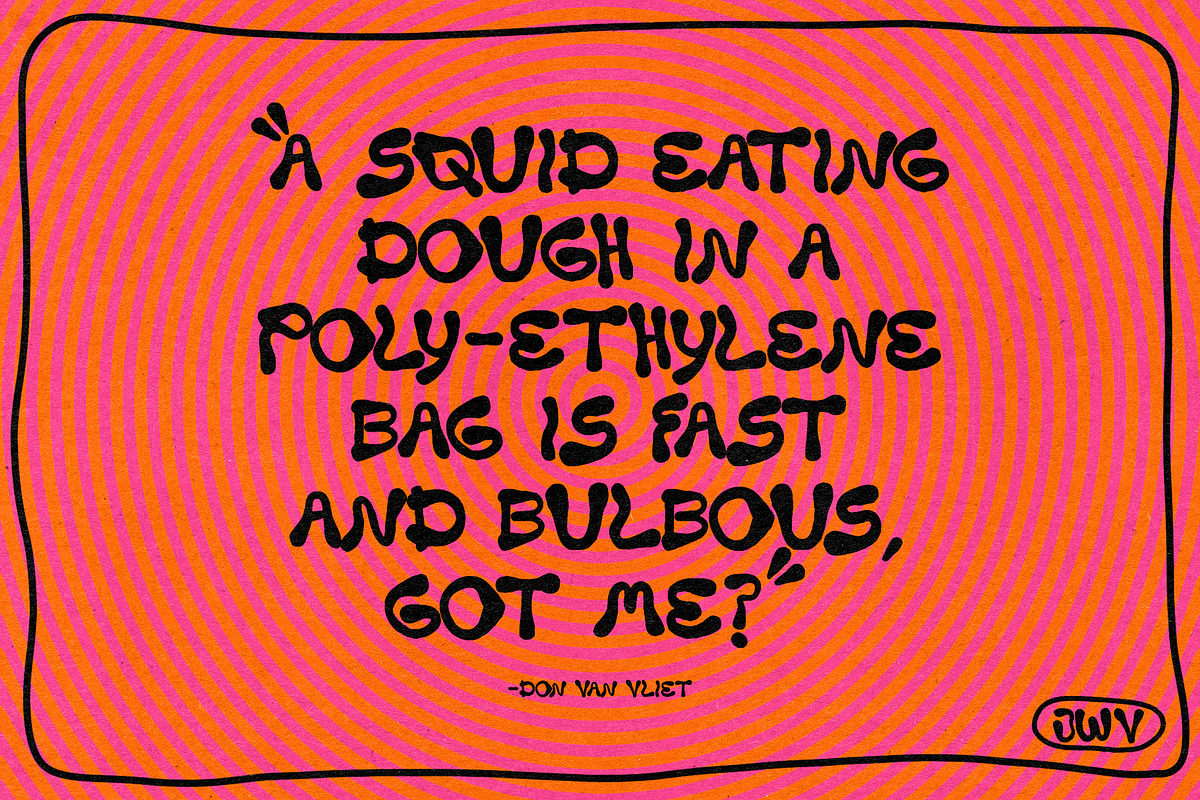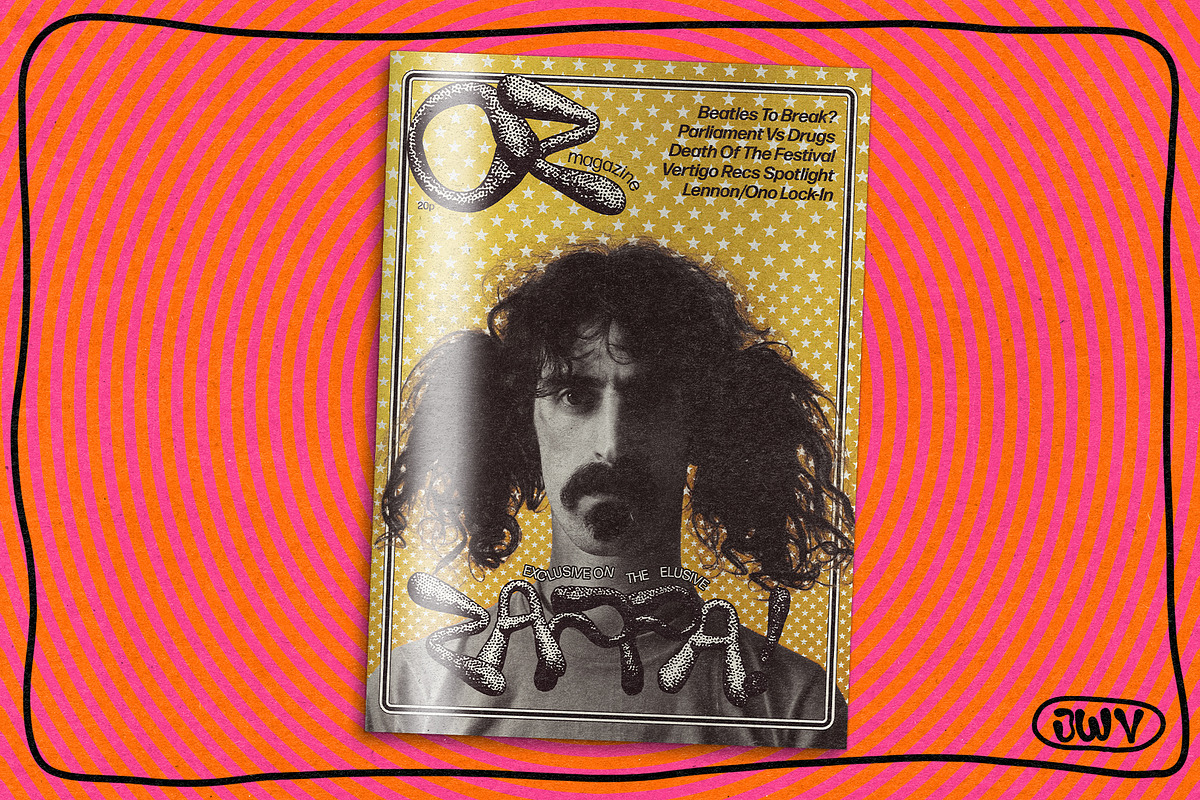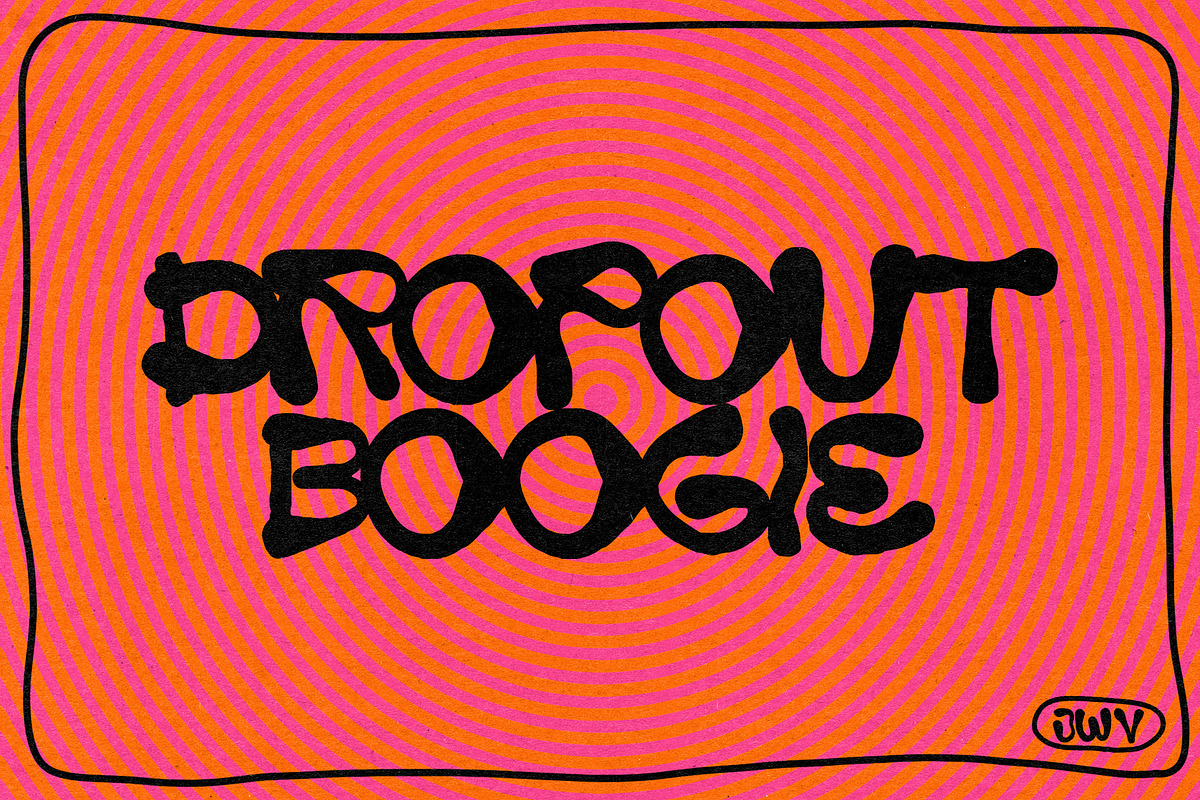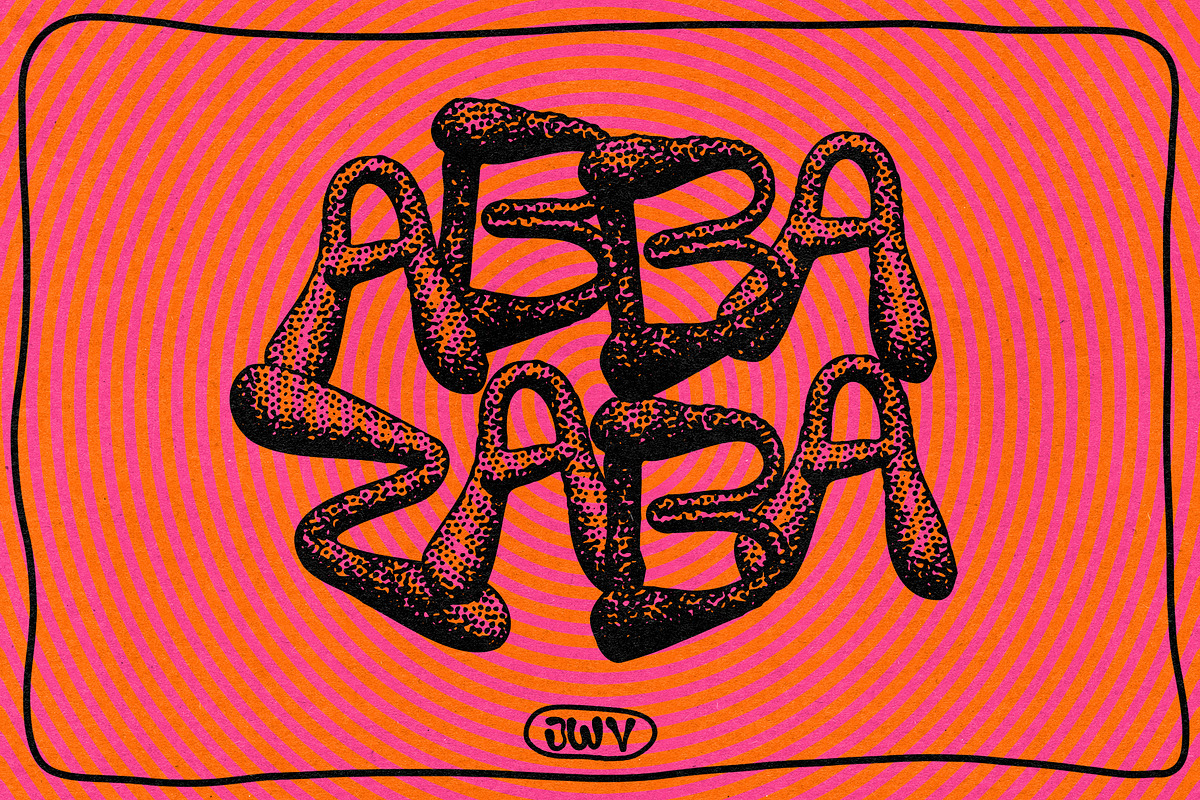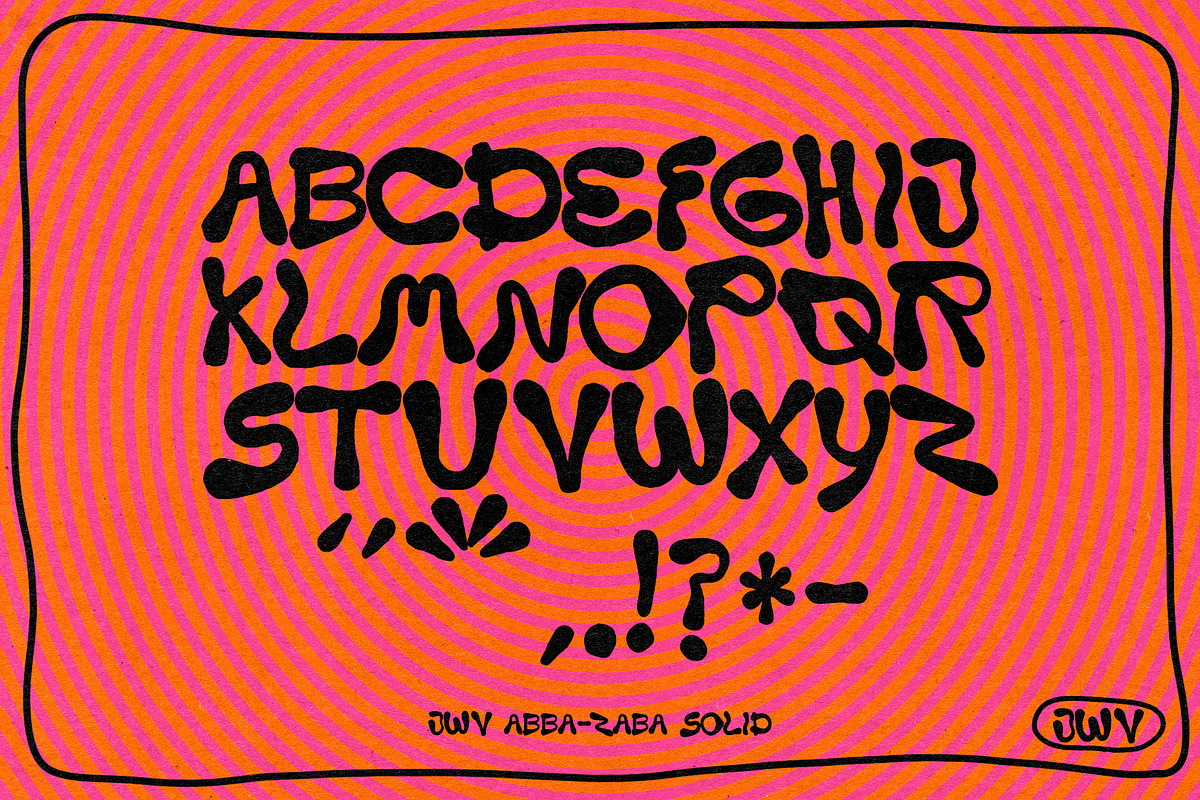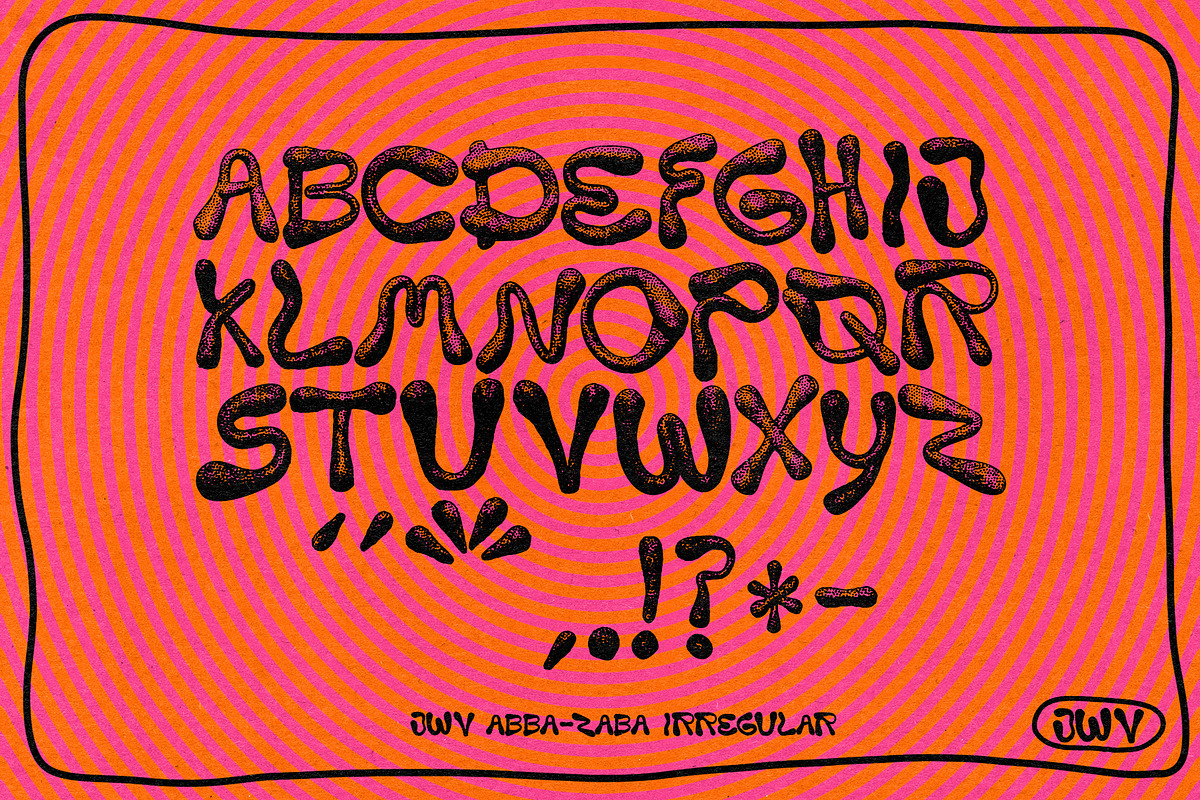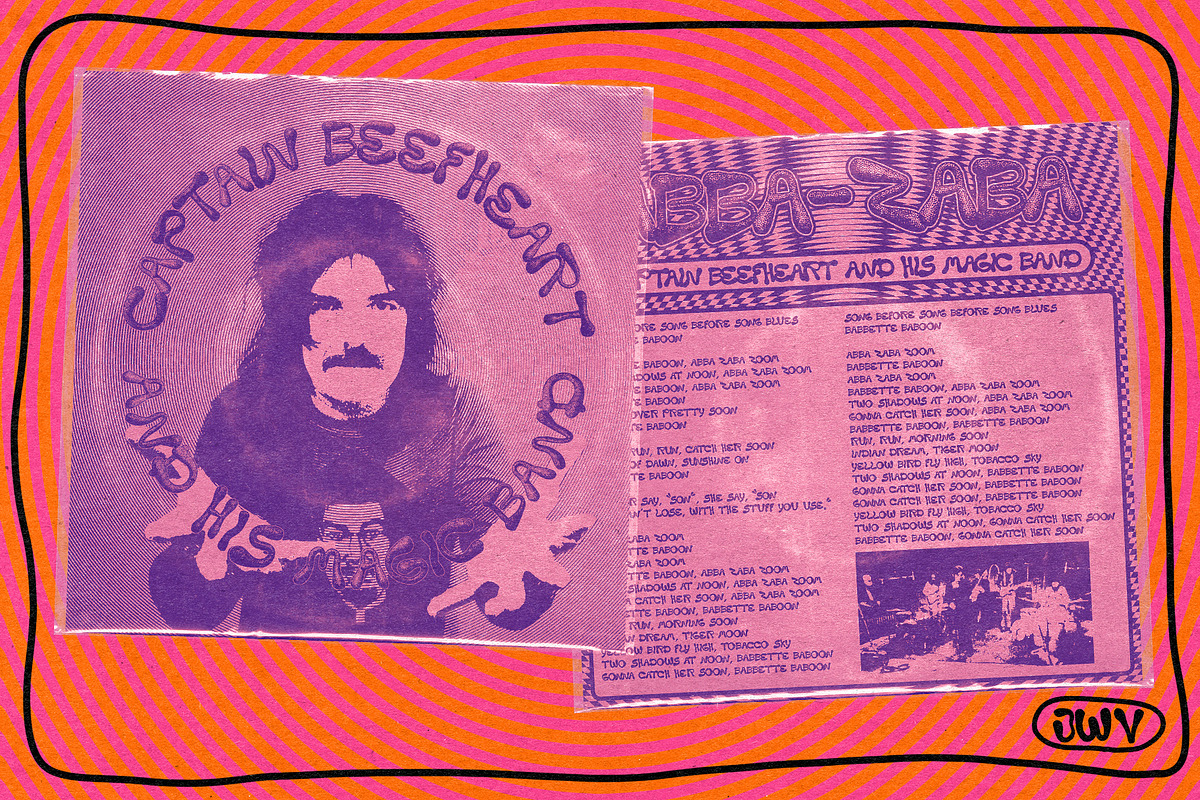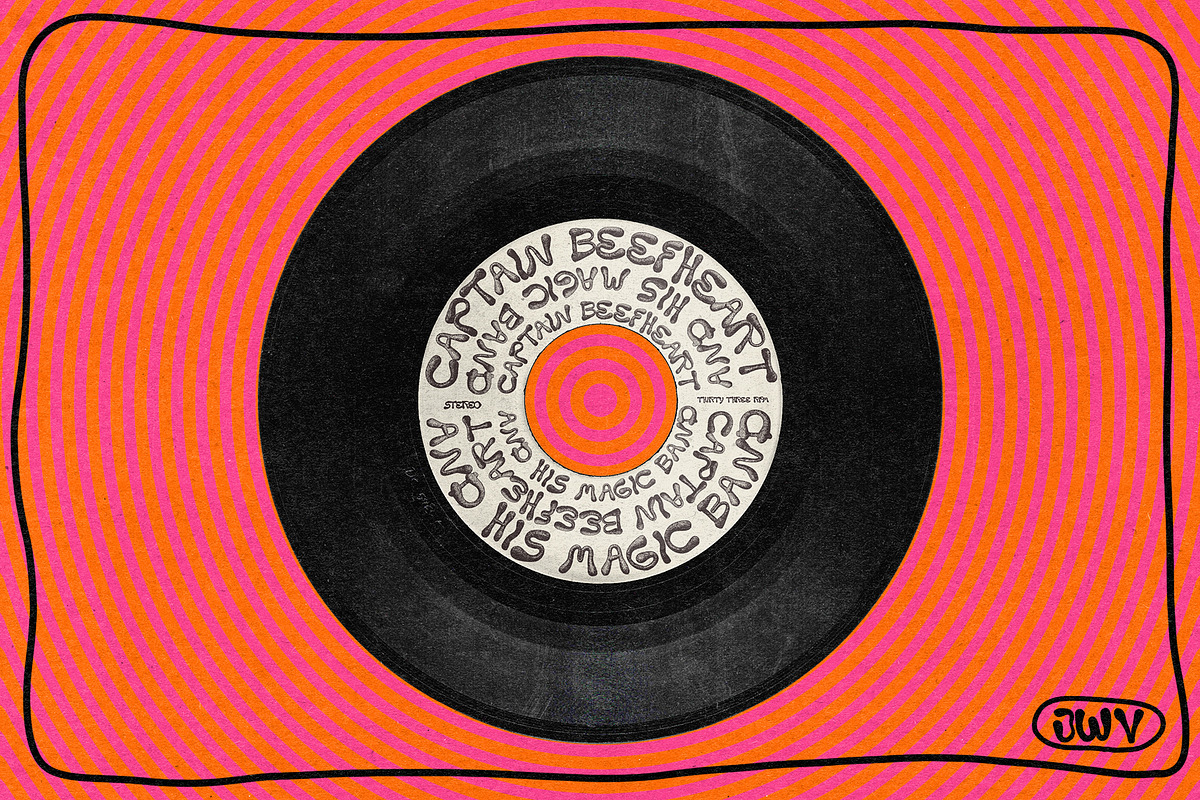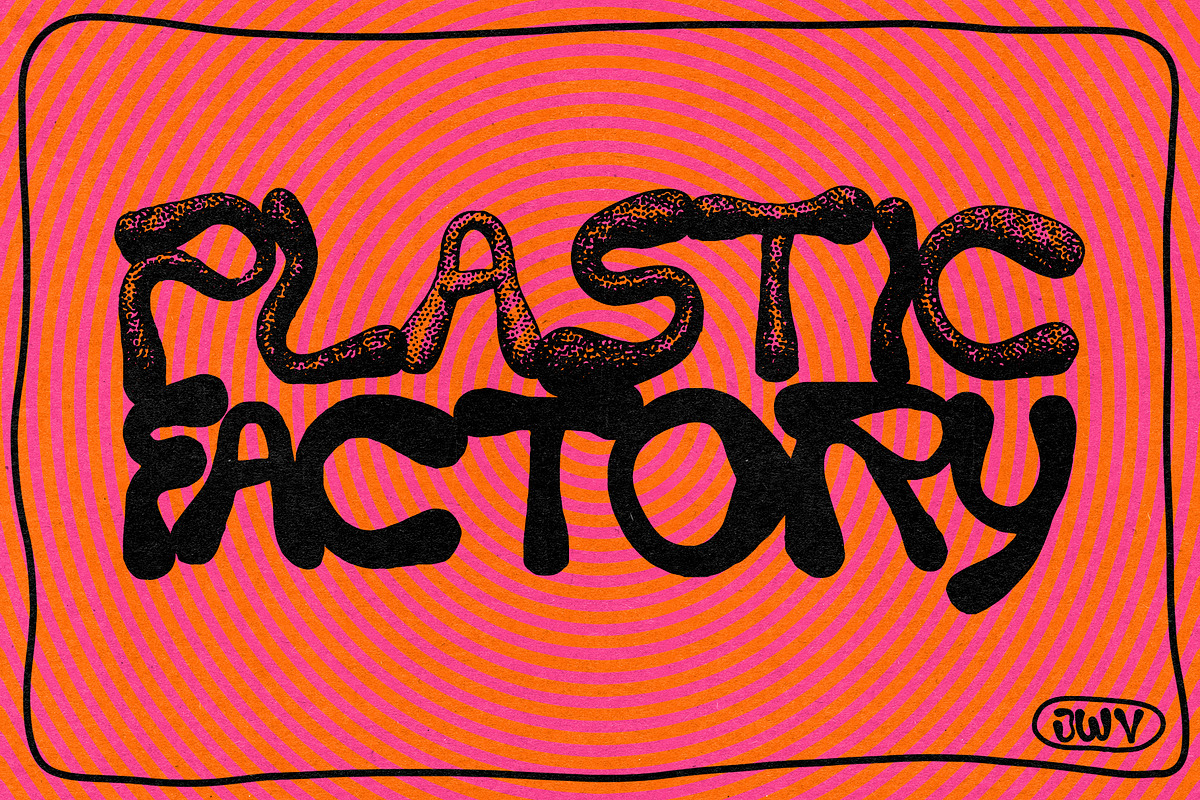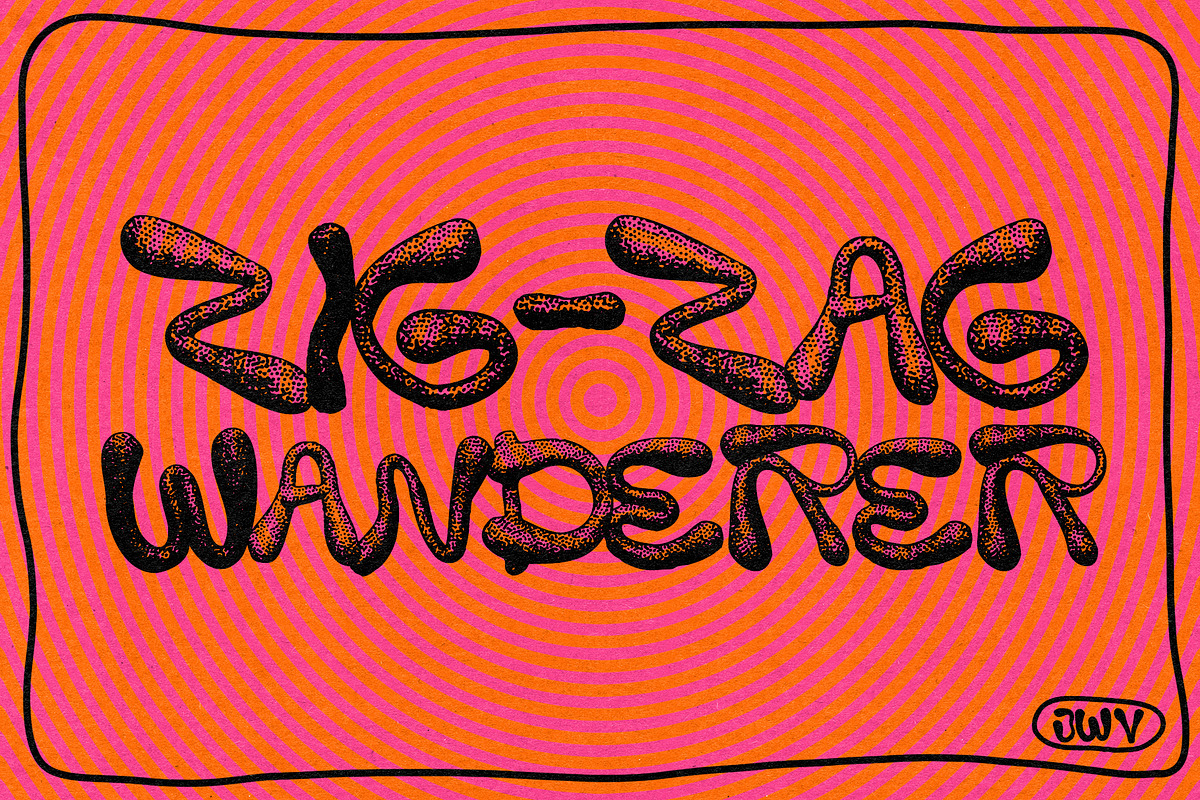
JWV - ABBA ZABA
This weirdo font was an early experiment from way back in my earliest font making days. Each character has been handcrafted in blu-tac, photographed and then edited to retain all of its 3D glory. If your poster project is looking a little bland right now then this is just what it's looking for, that little bit of FREAK to liven it up!
The fonts include Capitals from A(bba) to Z(aba) and a handful of punctuation. I couldn't tell you why I never thought to make numbers, but if there is a demand for it, I will update the font!
The ABBA ZABA font pack comes with two styles:
- Irregular is the stippled 3-Dimensional glob of a display font
- Solid is the filled in 2-Dimensional brother. It also works as a shadow for the Irregular style